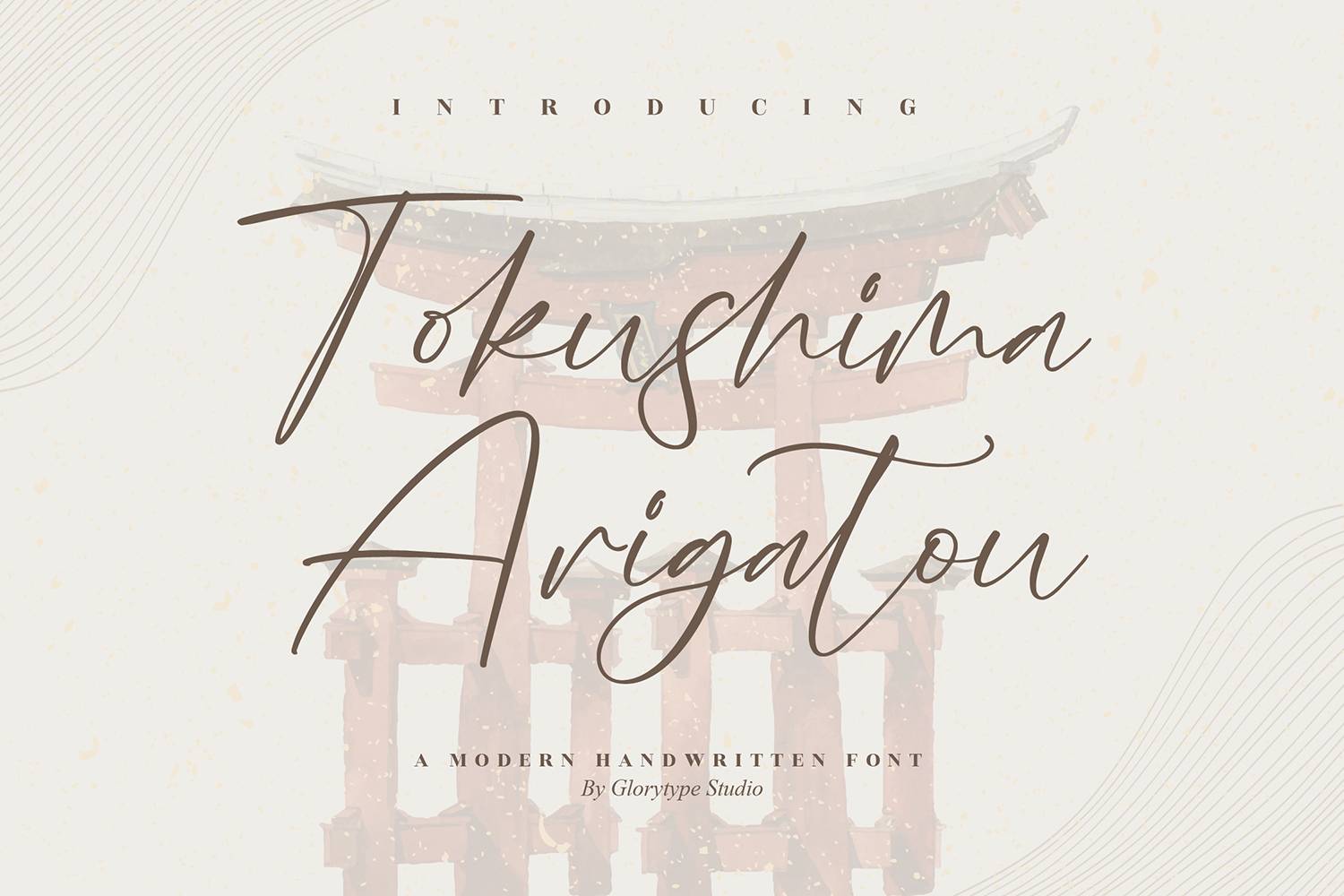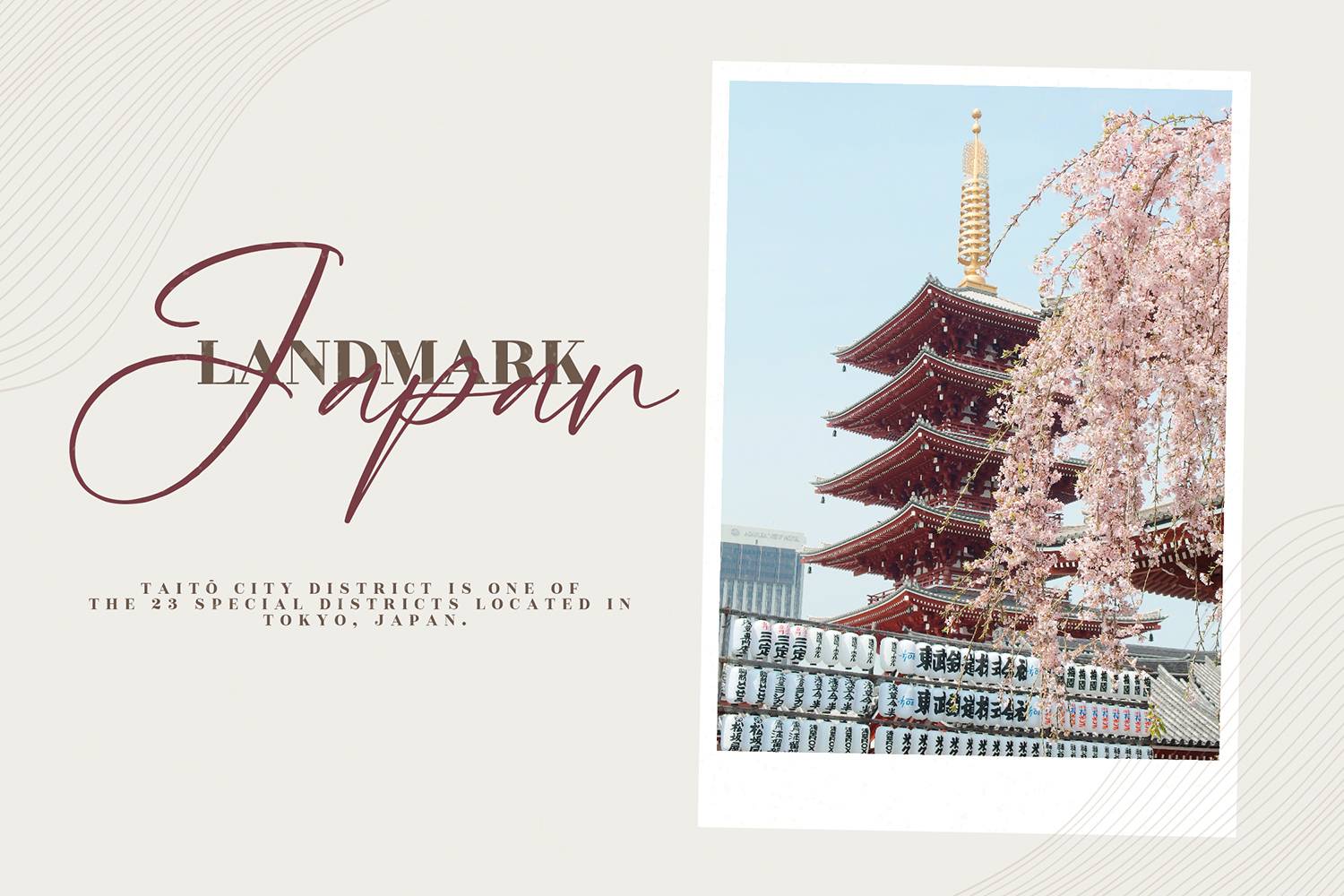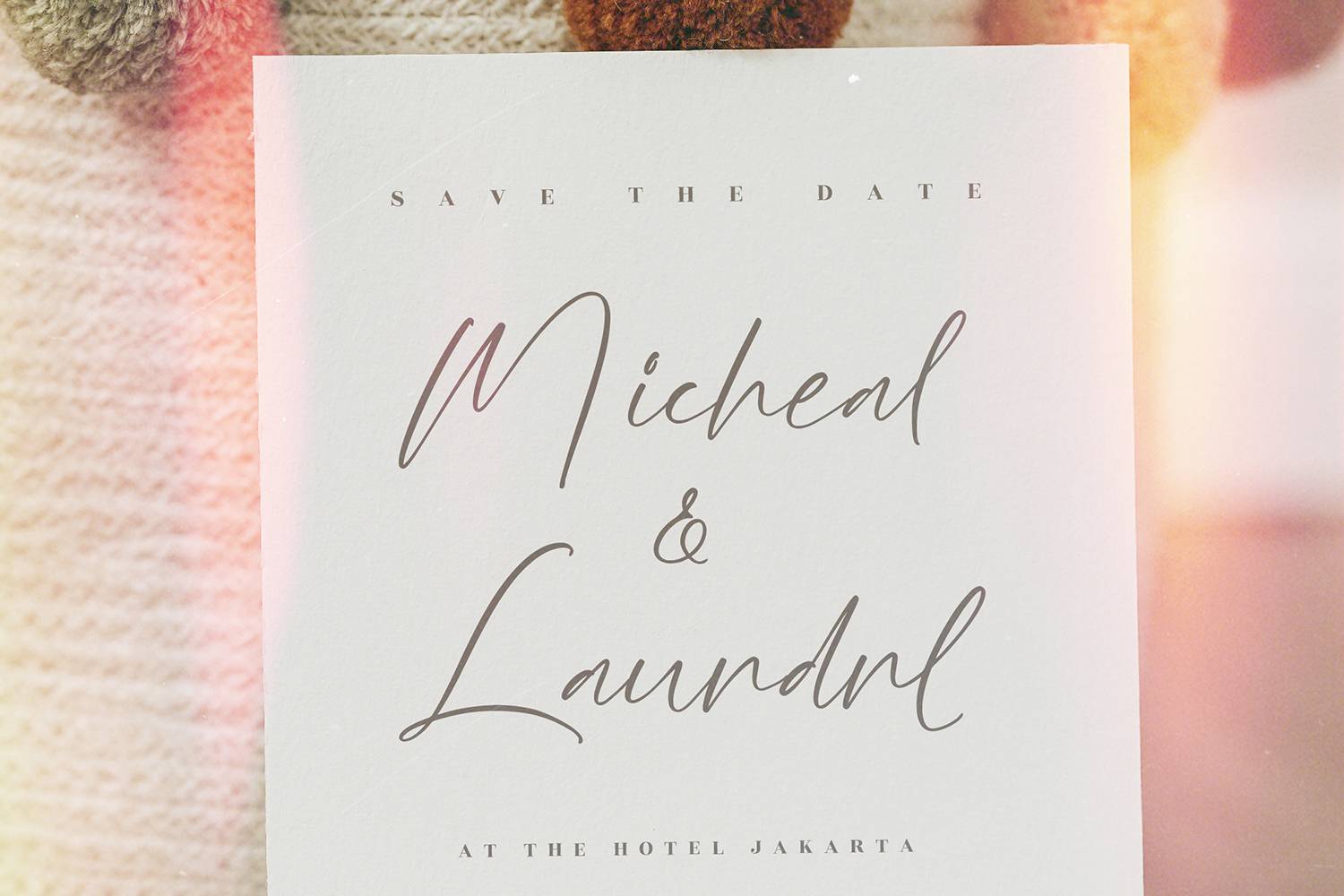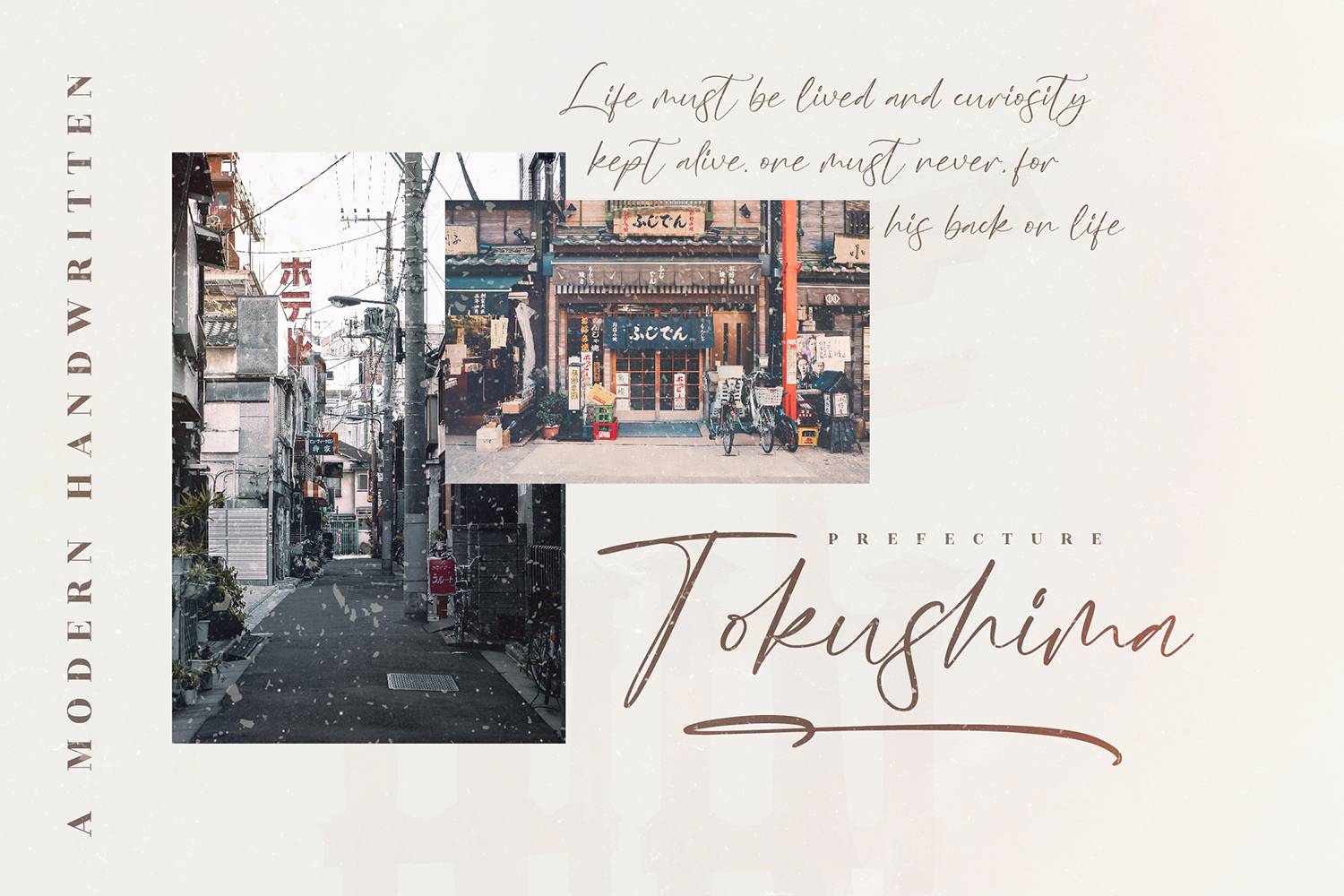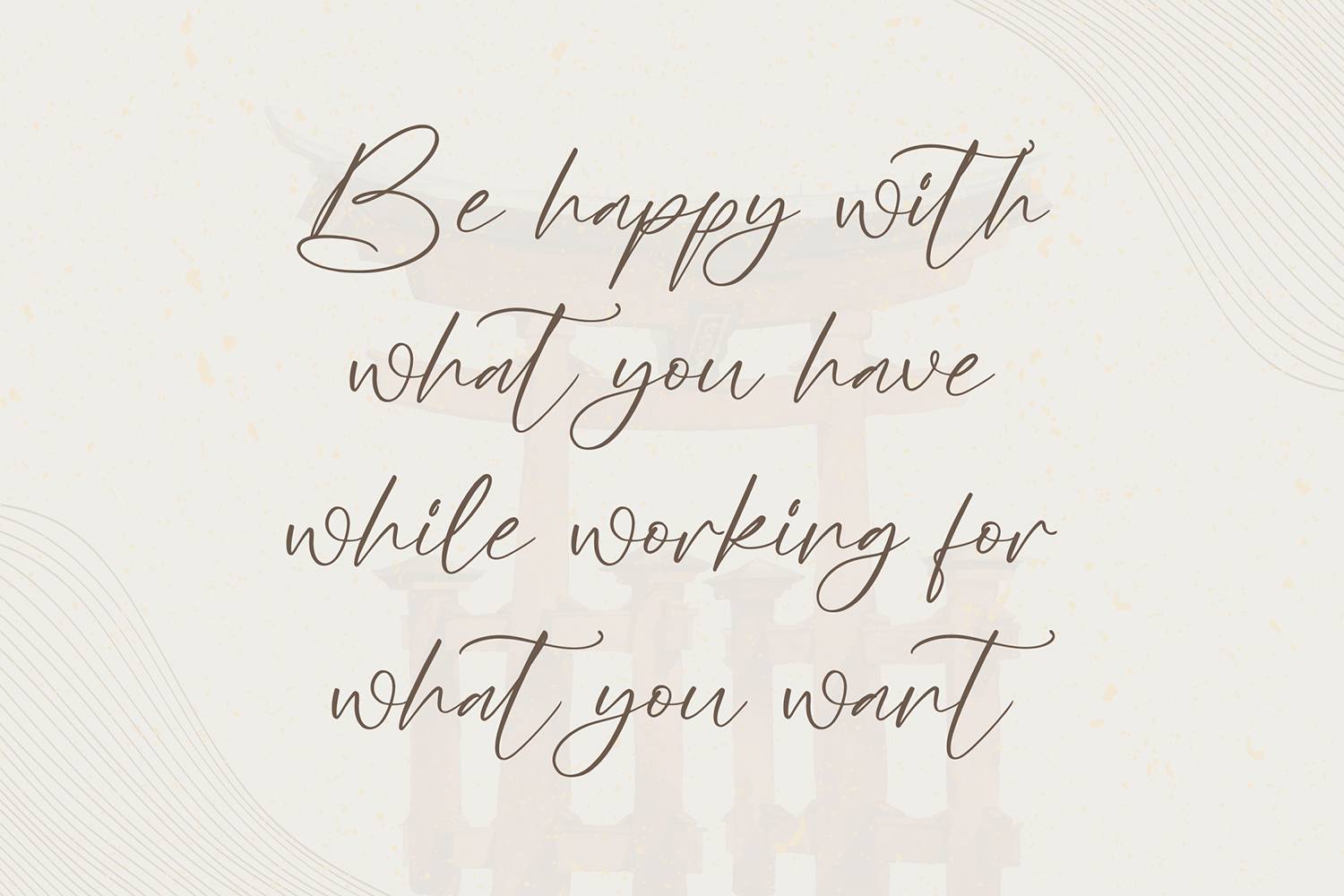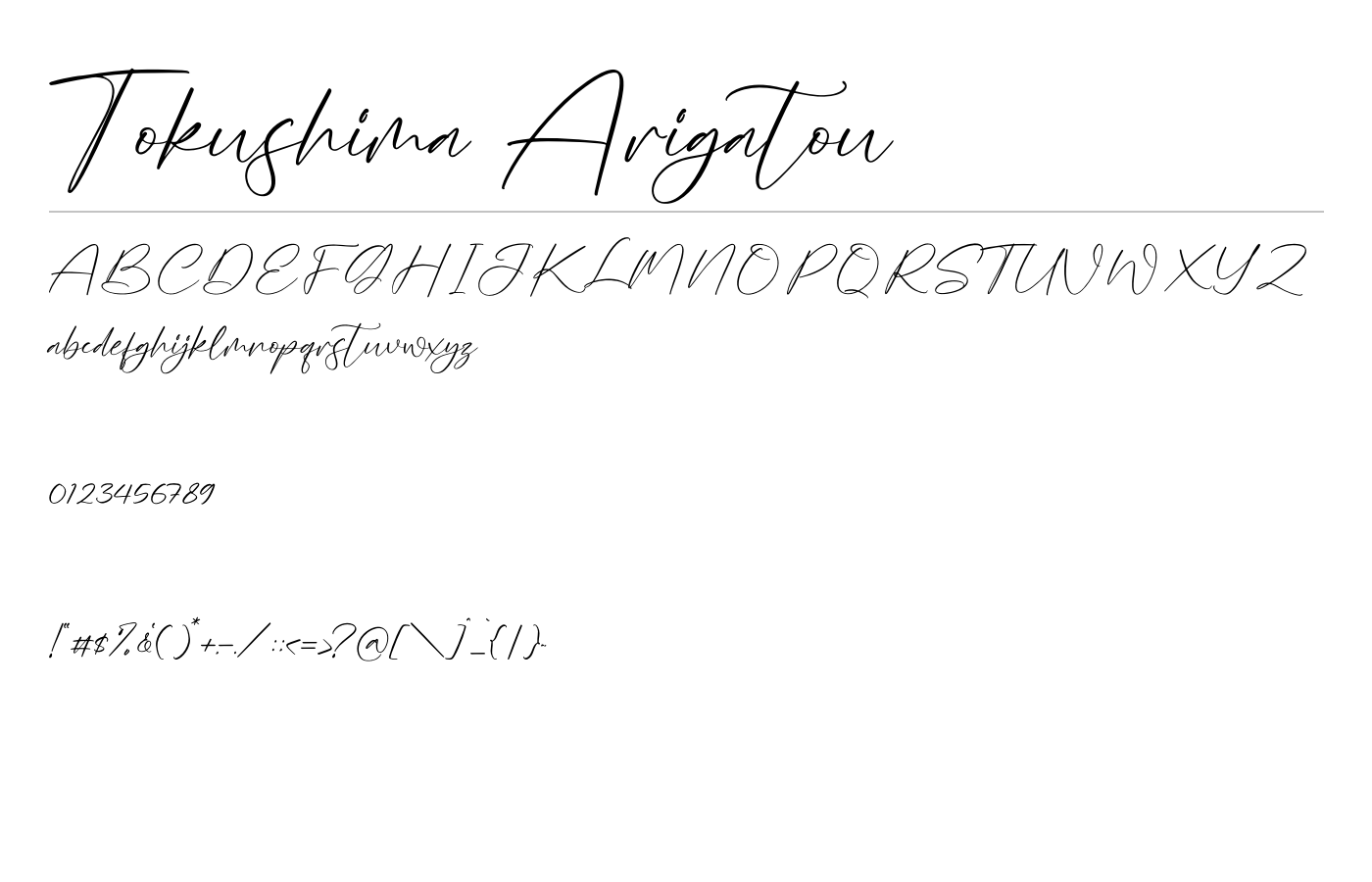
Tokushima Arigatou is a delicate, elegant script font characterized by its thin, flowing strokes and graceful letterforms that mimic natural handwriting. Its light weight and airy spacing make it perfect for adding a refined, personal touch to wedding invitations, greeting cards, or stylish branding that seeks a gentle, sophisticated feel. This font works best in large sizes for headlines or logos where its beauty and fluidity can really stand out.
Tokushima Arigatou Font
About Tokushima Arigatou Font